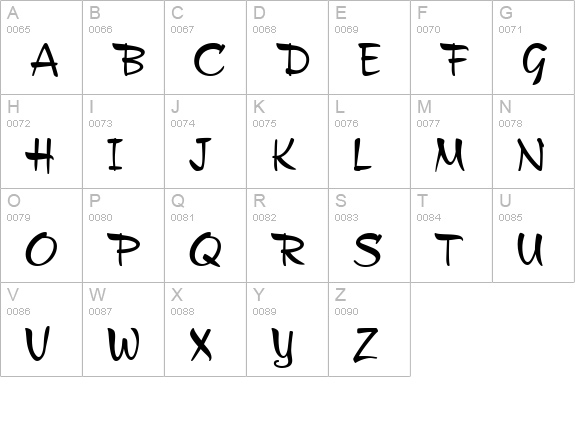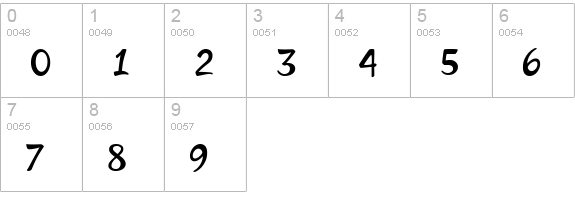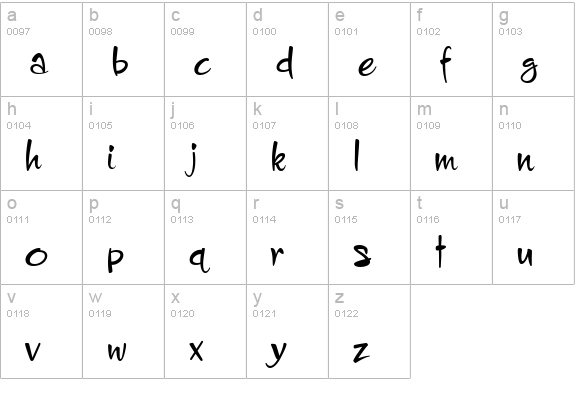
CharadeJF font is a stunning display typeface that exudes elegance and sophistication. With its unique and stylish letterforms, this font is perfect for adding a touch of luxury to any design project. The sleek lines and intricate details of CharadeJF make it a versatile choice for a wide range of applications, from branding to editorial design. What sets CharadeJF apart is not only its captivating aesthetics but also the fact that it is completely free to download. Available at FontsMarket.com, this font can be easily accessed by designers and creatives looking to elevate their work without breaking the bank. Whether you're designing a poster, logo, or website, CharadeJF is sure to make a lasting impression with its timeless appeal and effortless charm. Download CharadeJF today and unleash your creativity with this exquisite font that combines beauty and accessibility in one seamless package.